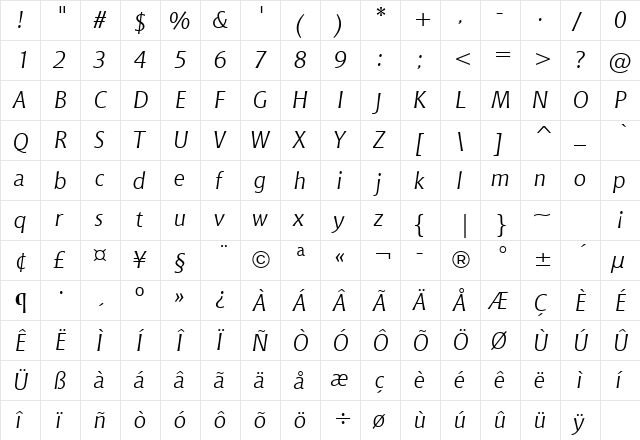
Chianti GX BT Italic
Design Context for Chianti GX BT Typeface
Chianti GX BT takes a measured approach to typography — its balanced proportions and neutral character make it a reliable workhorse for both digital and print work. The dynamic lean of this cut emphasises speed and emphasis in any layout.